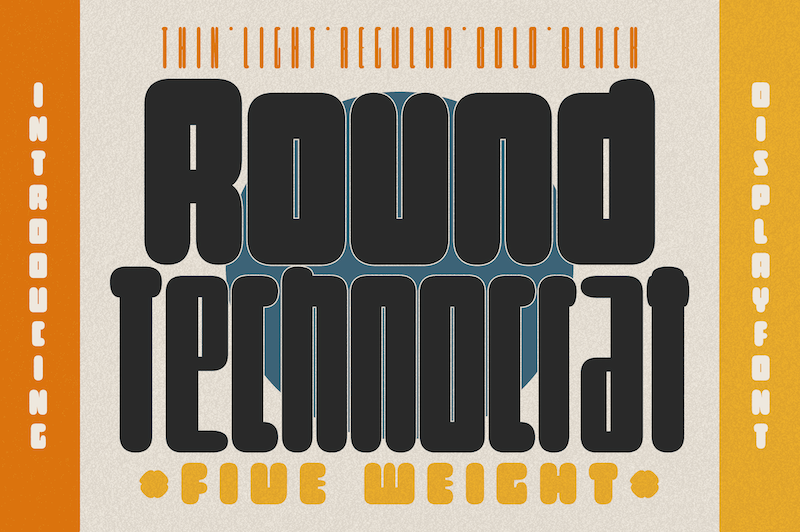
Preview and download Round Technocrat Font. Created by Måns Grebäck in Fancy Various styles with Free for personal use license.
NOTE: This font is for PERSONAL USE ONLY! To purchase a commercial license, visit: http://mn.sg/round-technocrat Round Technocrat is a rounded, geometric font that blends heavy, square shapes with circular curves to create a distinct and modern typeface. The font family is perfect for designs that require a balance of rigidity and fluidity. For questions, please visit www.mansgreback.com/faq |